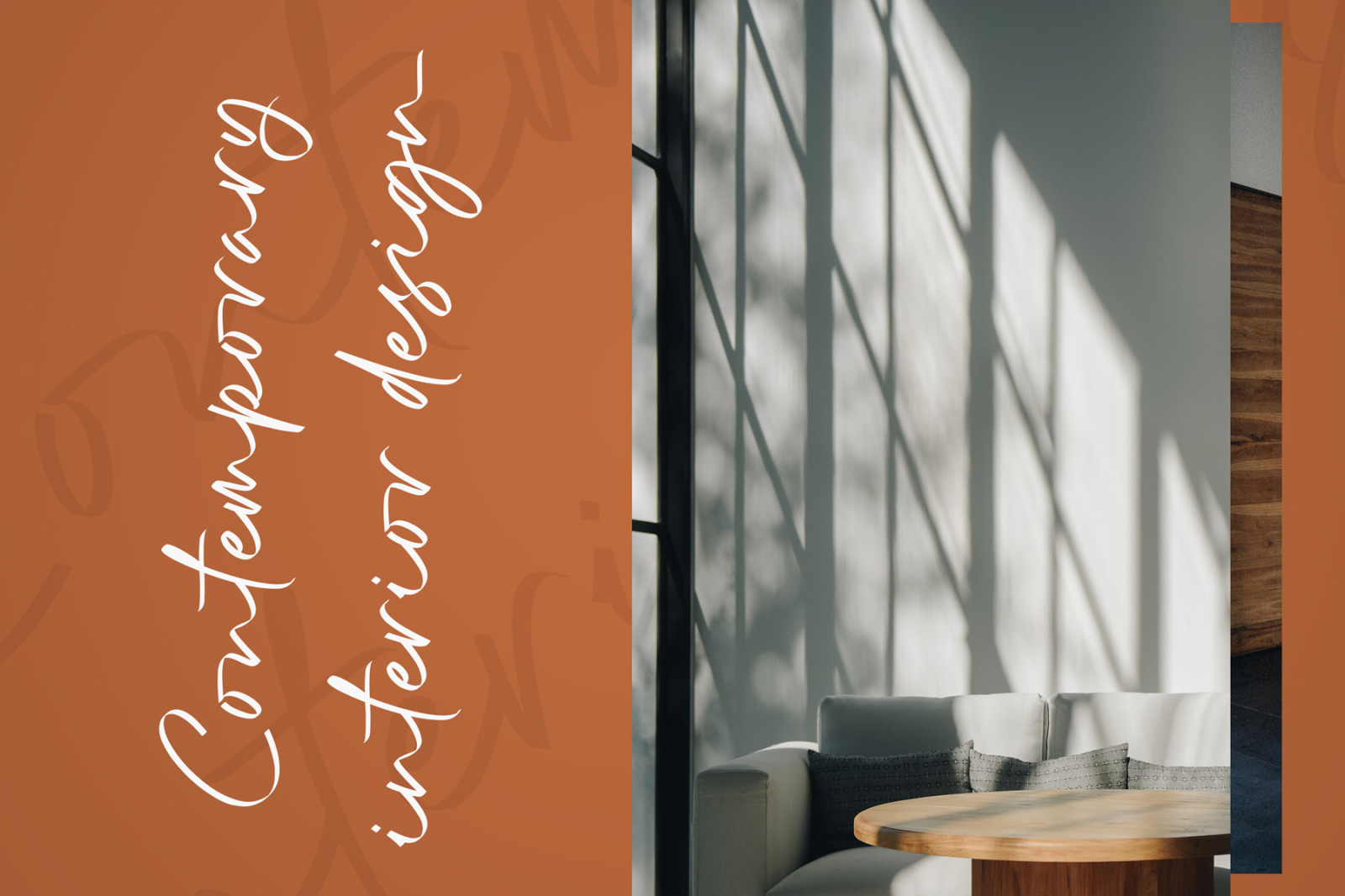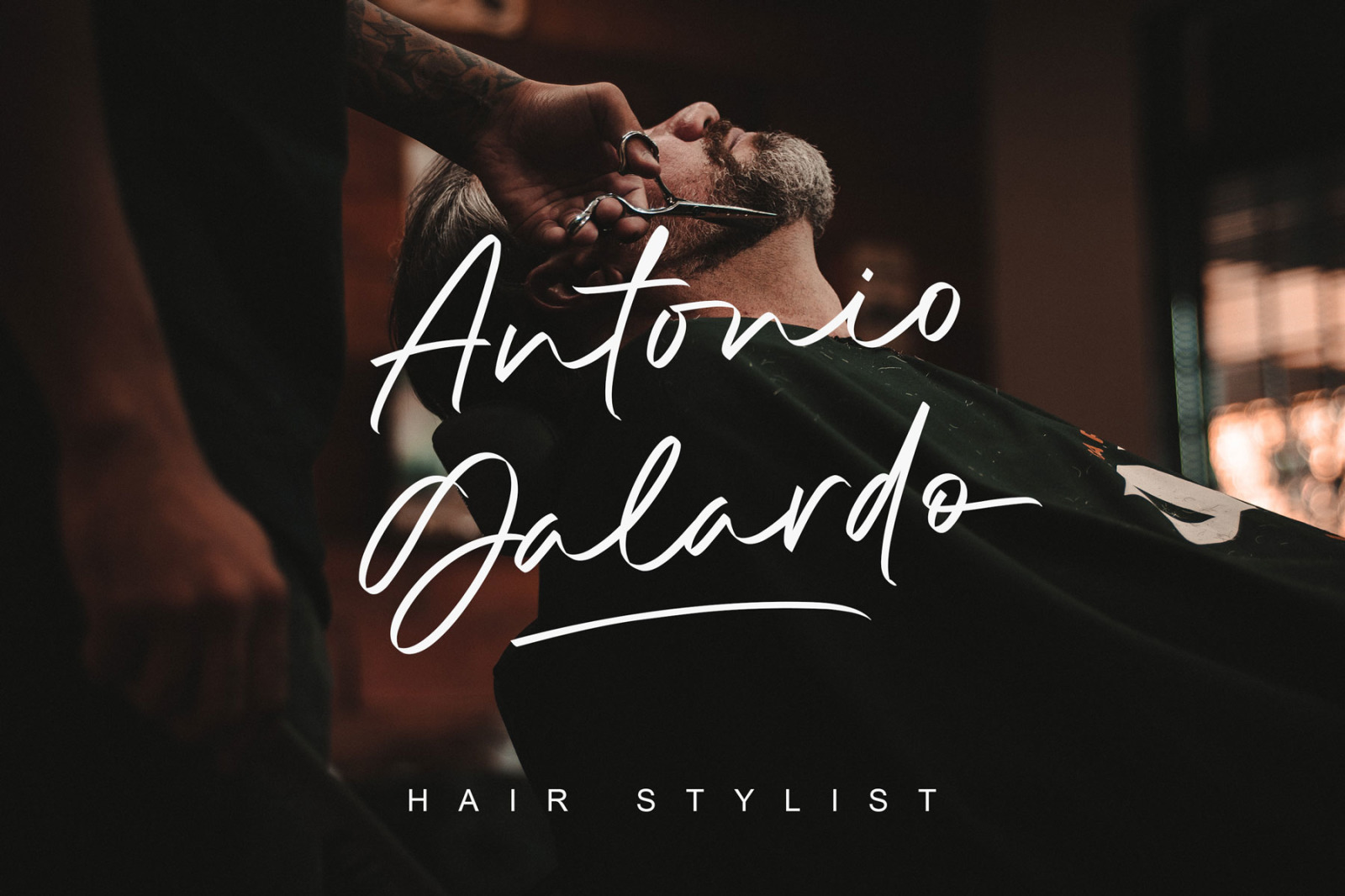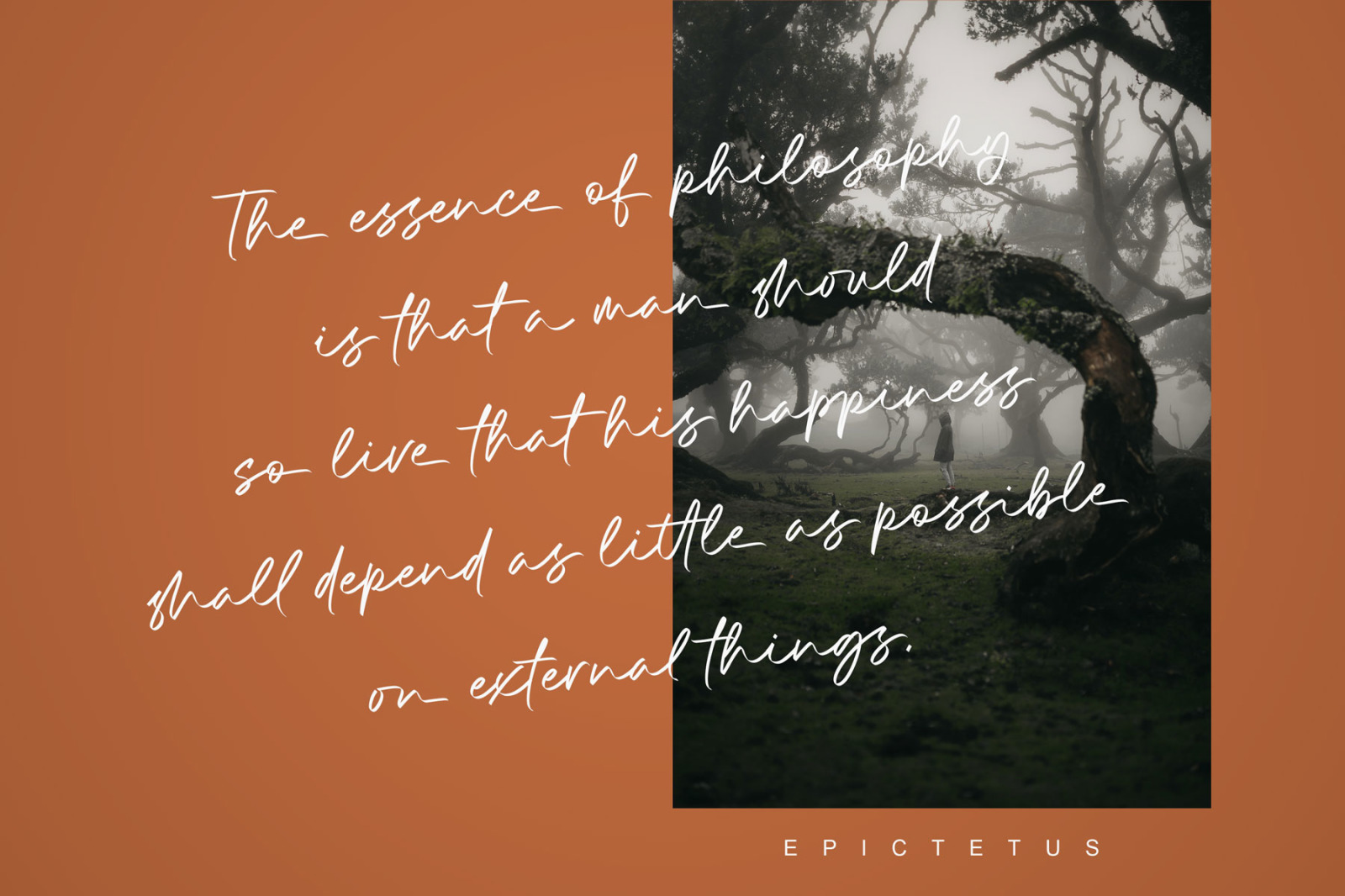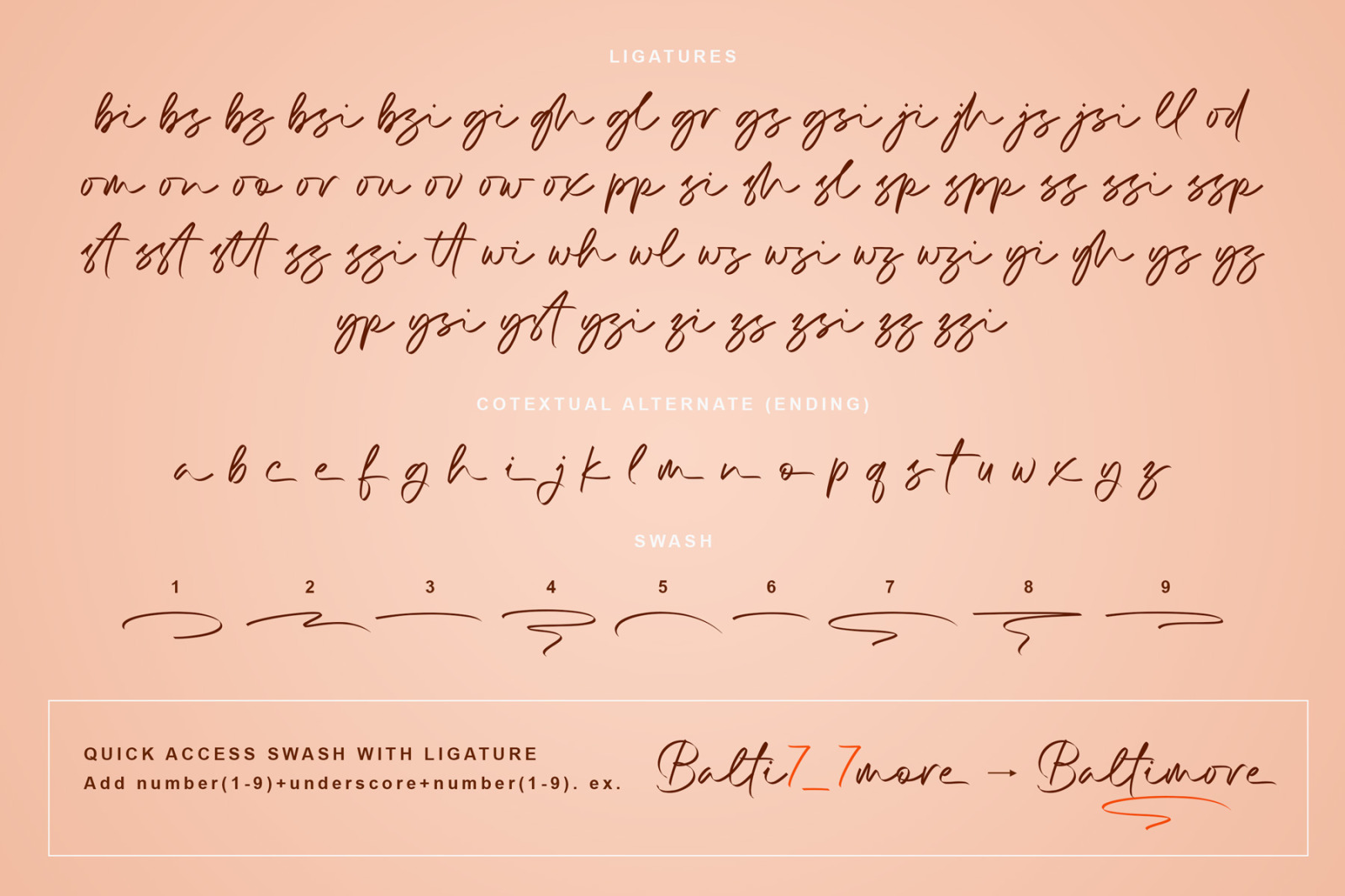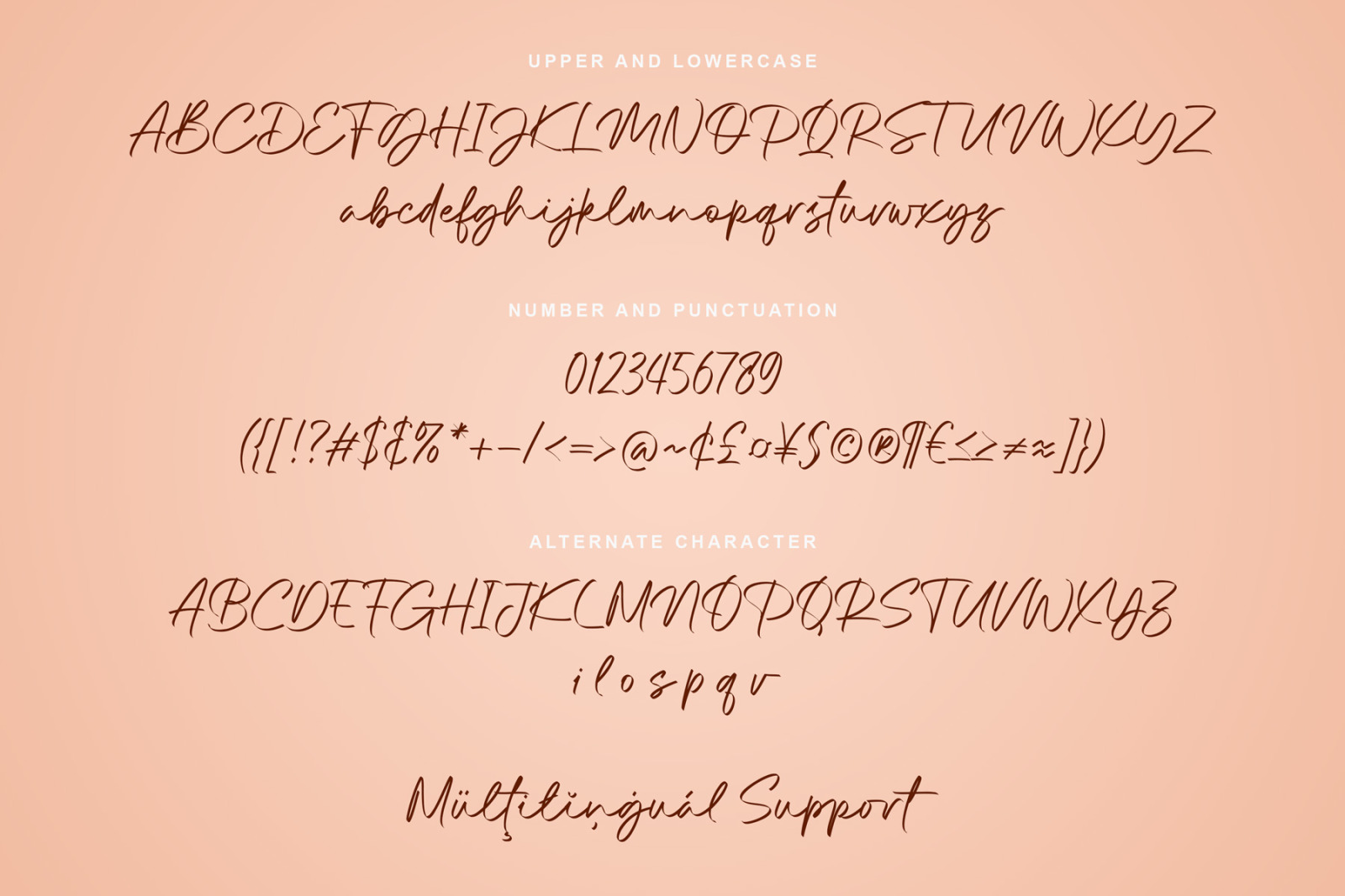
Montegi Font
Montegi is a modern calligraphy font. it has a gentle and beautiful flow, and as a result it will elevate each of the designs you wish to create!. It’s the perfect font for wedding invitations, stationery, photography, social media posts, product packaging, greeting cards, and much more!
FEATURES
-Ligatures
-Contextual Alternate
-Alternate
-Uppercase and Lowercase letters
-Numbering and Punctuations
-Also Multilingual Support